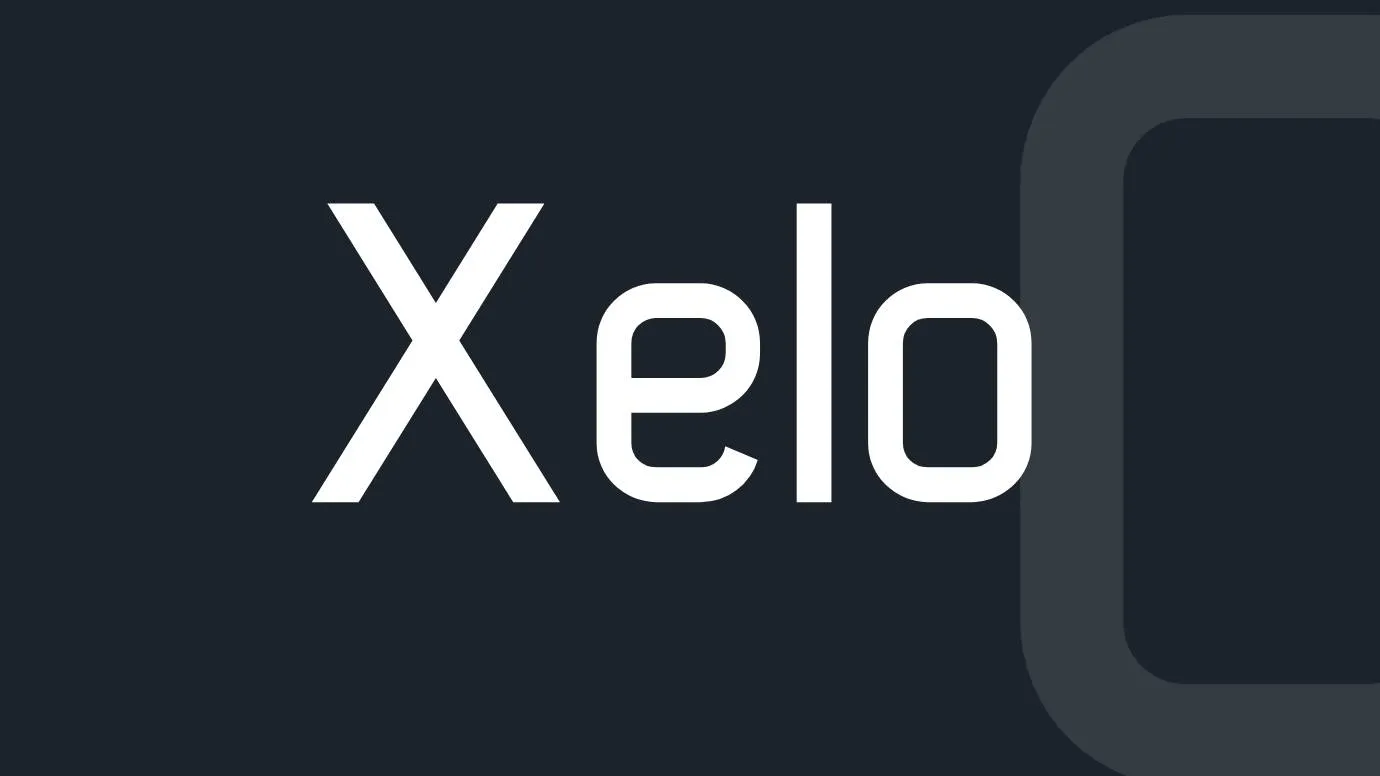
Xelo Font Family is a modern sans-serif font family and Atjcloth Studio is the main publisher of this font. Hanif Syahputra is the original designer of this typography. This font family has a friendly and narrow look shape.
This typography contains a total of 04 weights. The text generator tool of this family is suitable for making graphic design purposes. This font family is also good for making heavitas font that comes in the sans serif font family.
Xelo Font